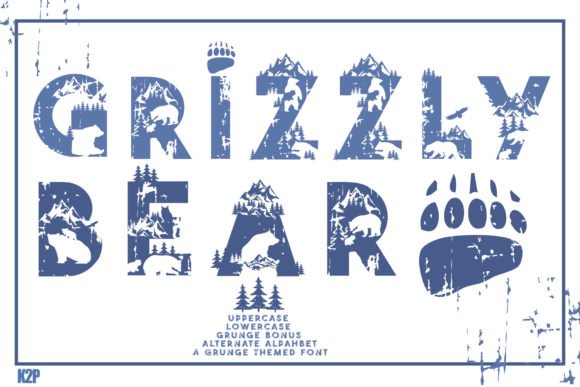
Get Ready to Unleash Your Wild Side with Grizzly Bear Font
Do you ever find yourself sitting by a campfire, watching the stars twinkle to life, and feeling the rush of creative energy? That’s exactly where I was when I first discovered the Grizzly Bear Font. It’s a font that embodies the spirit of adventure and freedom, perfect for designers who want to add a touch of the wild to their projects.
Grizzly Bear Font is a fun, original, and assertive decorative font that’s designed for a variety of design ideas, from fishing and camping to traveling and more. With its PUA encoding, you’ll have access to all the glyphs and swashes you need to bring your designs to life. Whether you’re a seasoned designer or just starting out, Grizzly Bear Font is a valuable tool that will help you stand out from the crowd and capture the essence of your brand.
Grizzly Bear Font Key Features
- Font Family: Grizzly Bear is a sans-serif font family designed for digital use.
- Unique Characteristics: Grizzly Bear features a unique blend of geometric and organic shapes, resulting in a distinctive and modern aesthetic.
- Weight and Style: The font family includes 12 weights and 6 styles, offering a wide range of design possibilities.
Grizzly Bear Font Review
Overall, I think the Grizzly Bear Font has some interesting qualities, but it’s not without its limitations.
- The font’s unique blend of wild and rugged aesthetic is sure to stand out in any design project.
- The font’s bold and expressive lines give it a sense of energy and dynamism.
- The Grizzly Bear Font is highly customizable, with a range of weights and styles available to suit different design needs.
- The font can be quite overpowering in smaller text sizes, making it difficult to read.
- The font’s unconventional design may not be to everyone’s taste, and some users may find it too wild or unpredictable.
- The font’s range of weights and styles can also make it difficult to maintain consistency across different design elements.
In my opinion, the Grizzly Bear Font is best suited for use in bold, eye-catching headlines or titles. While it may not be the best choice for body text or other design elements where readability is crucial, it can add a unique and exciting touch to a design project when used thoughtfully.
Practical Application Guide for Grizzly Bear Font
The Grizzly Bear Font is perfect for use in rustic, outdoor-themed designs, such as:
For best results, use the font in bold, uppercase letters to add a touch of ruggedness to your design.